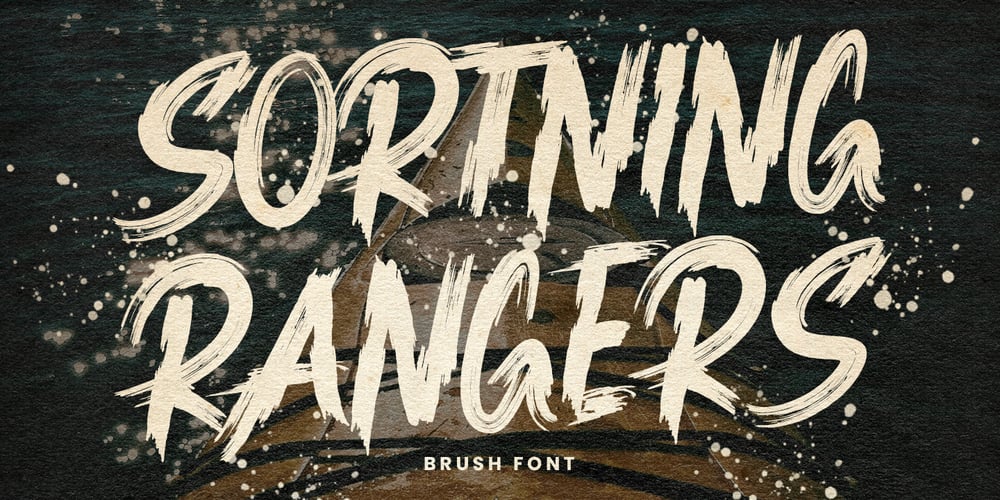
MC Sortning Rangers Font Family was designed by Gilang Maulana and published by Maulana Creative. MC Sortning Rangers contains 1 styles and family package options. Give your designs an authentic brush handcrafted feel. “Sortning Rangers Brush Font” is perfectly suited to signature, stationery, logo, typography quotes, magazine or book cover, website header, flyer, clothing, branding, packaging design and more.Thanks for use this font.Maulana Creative